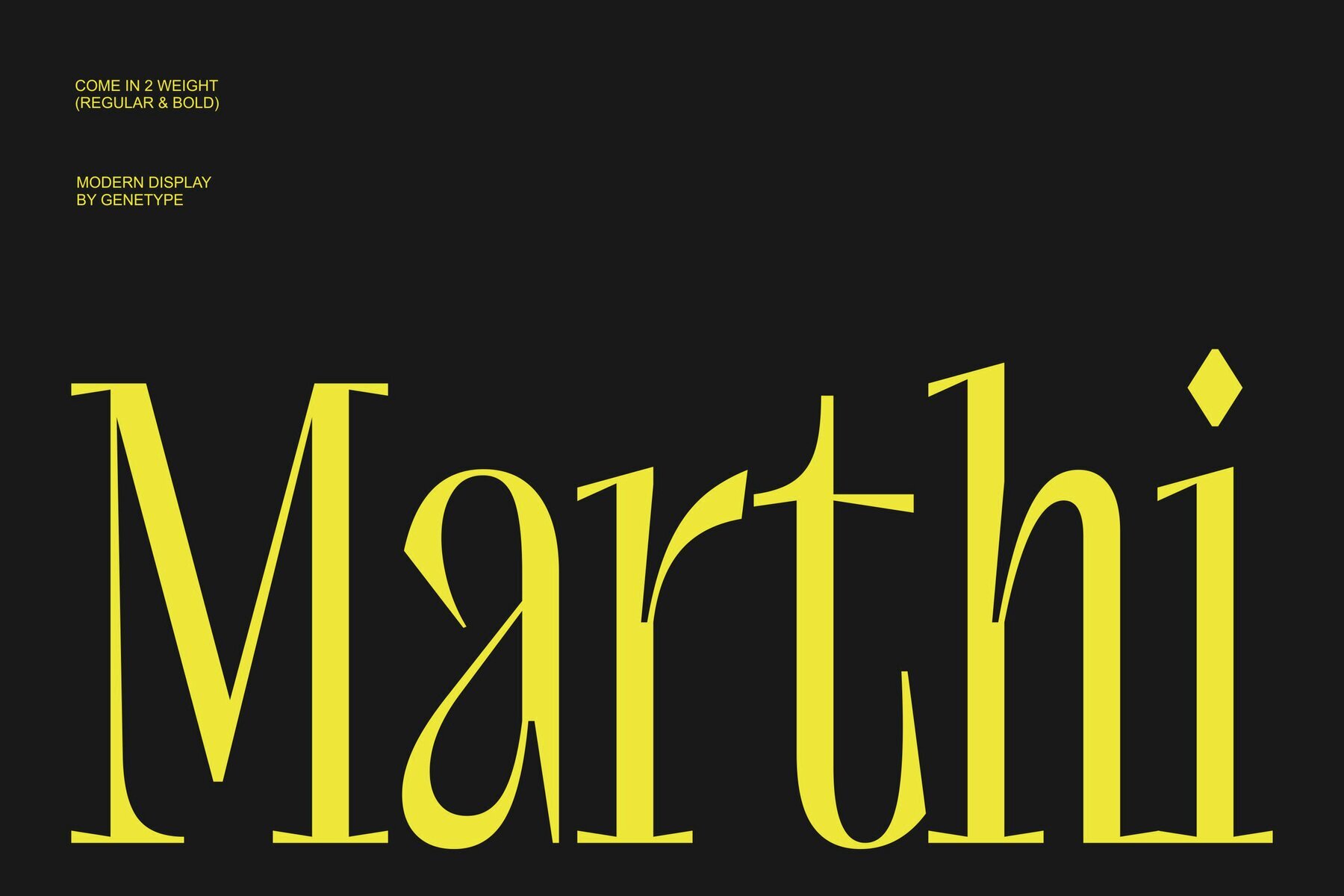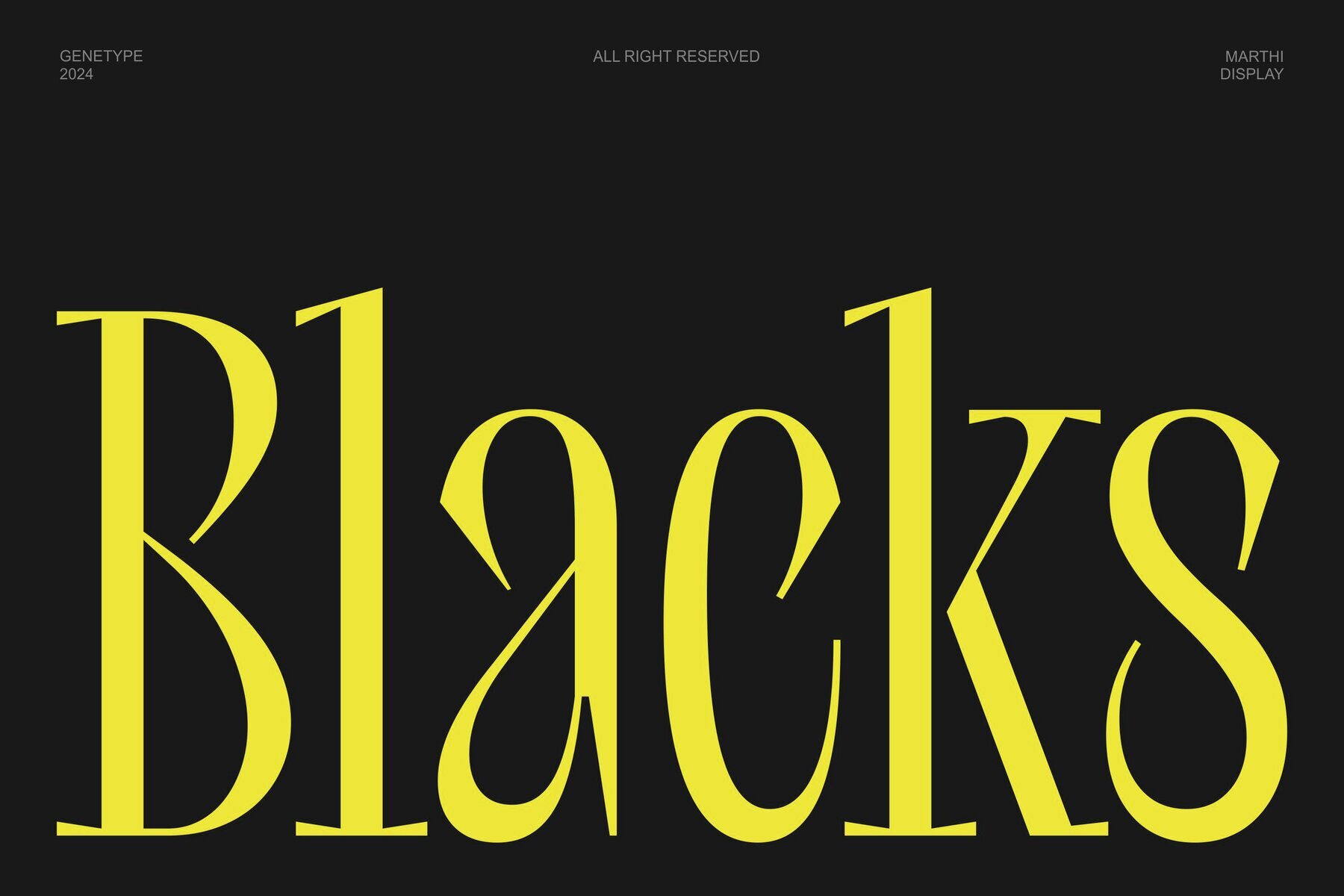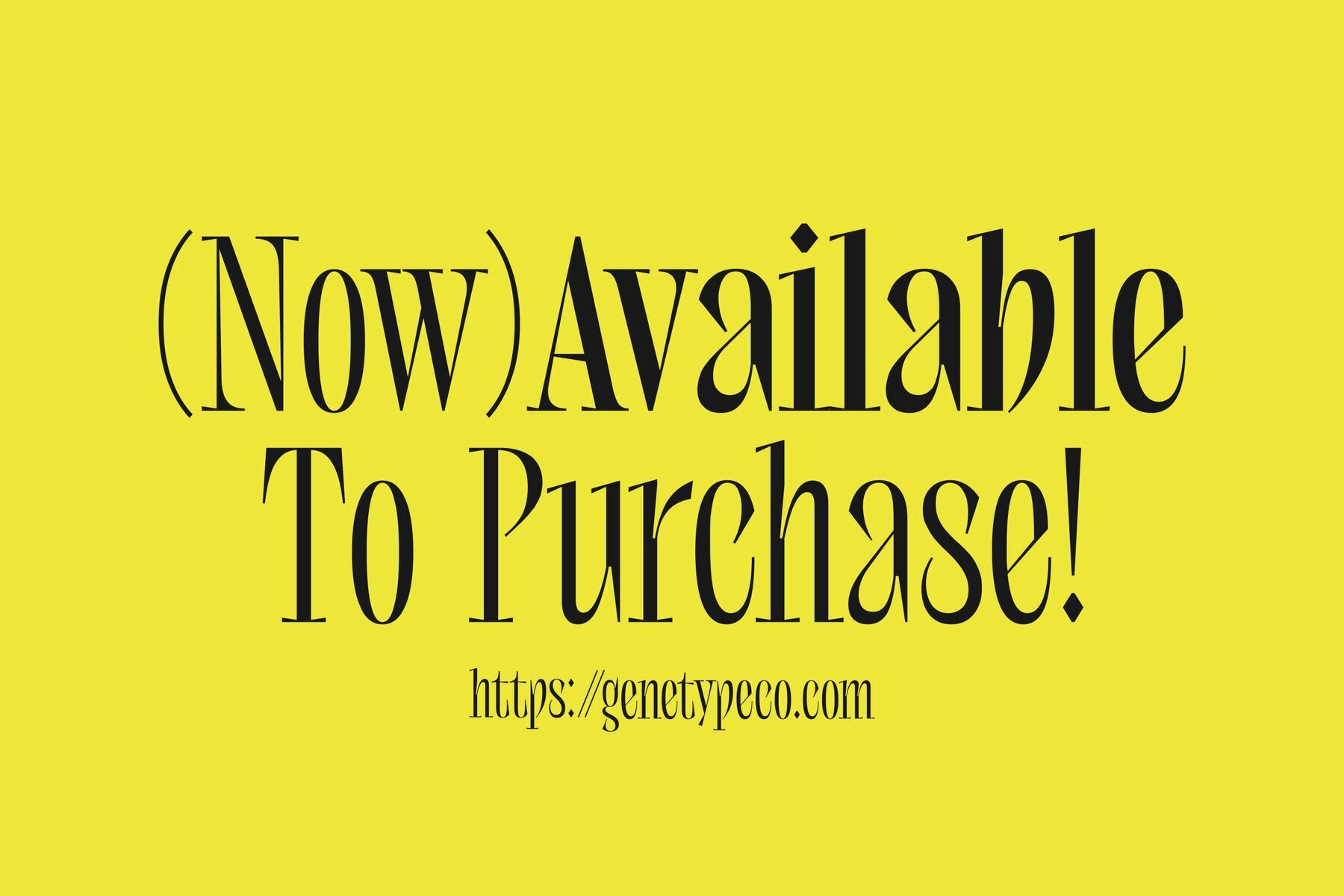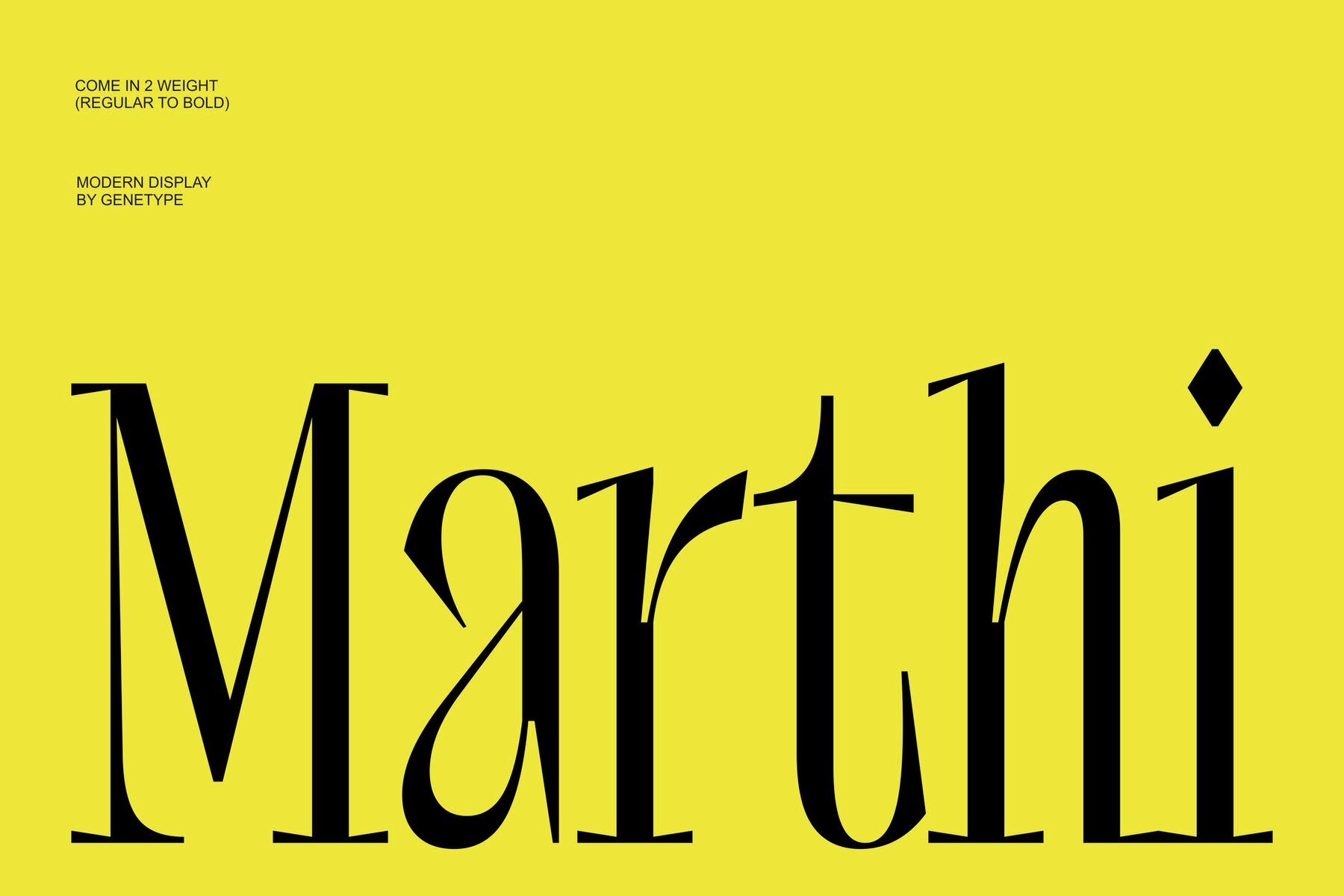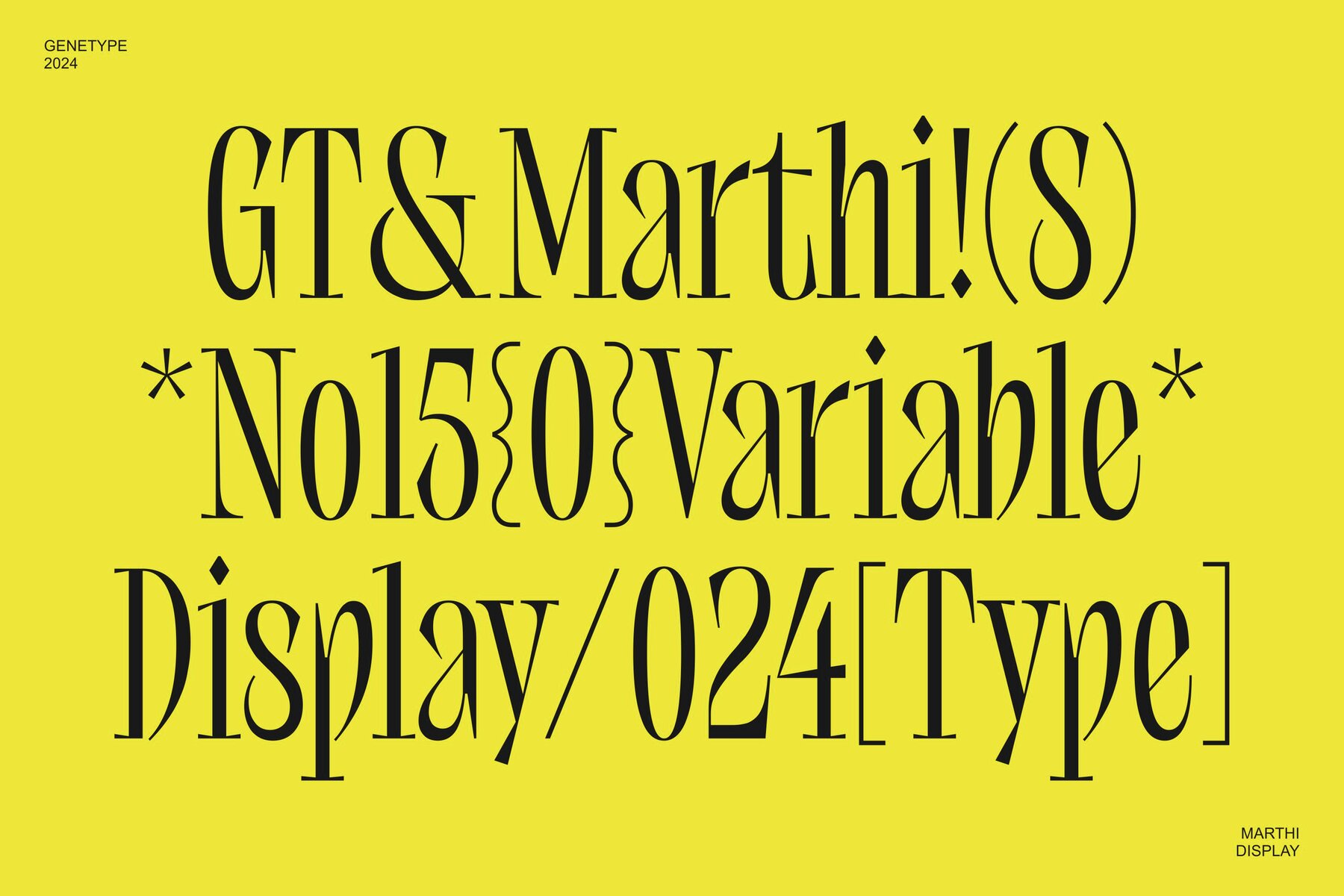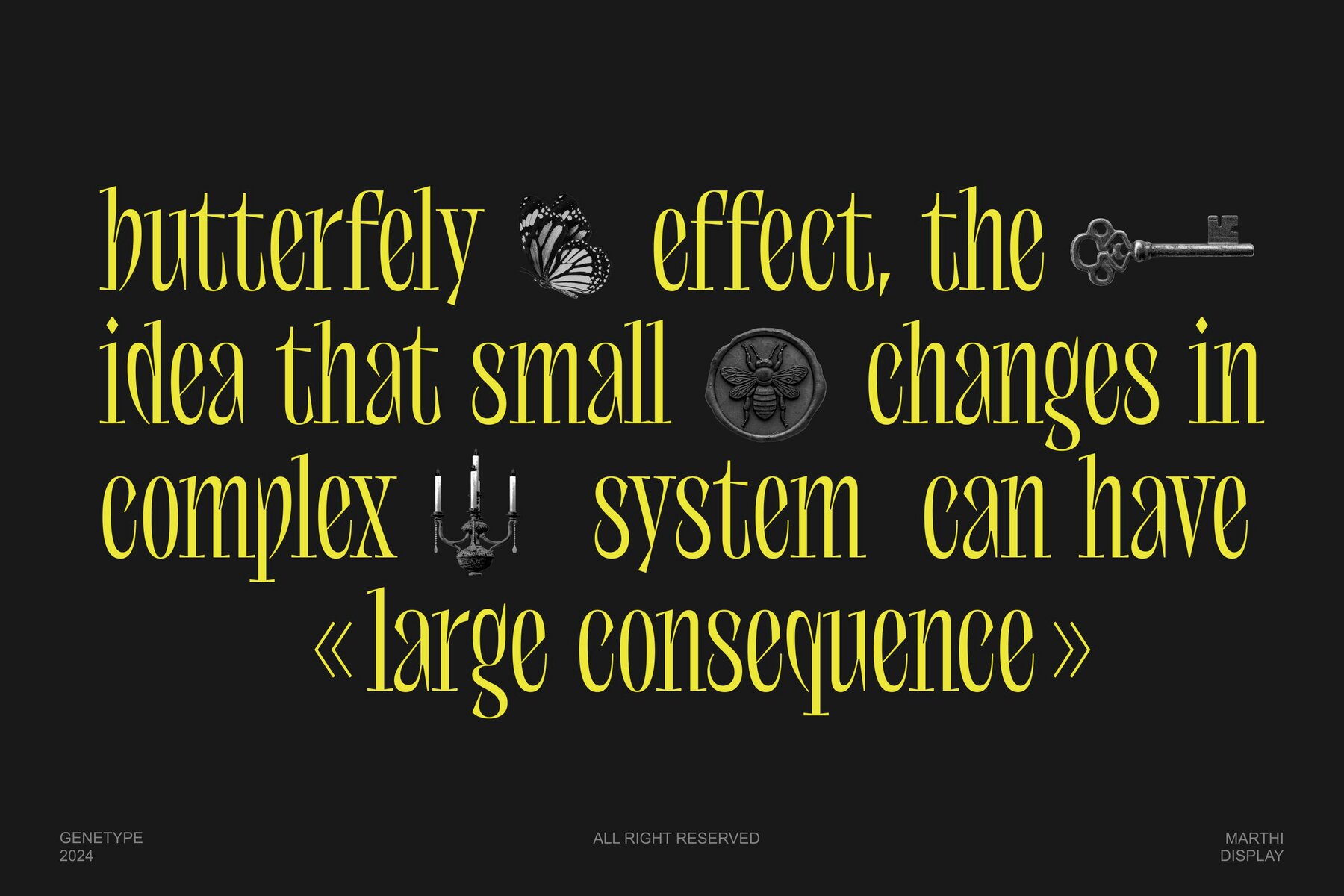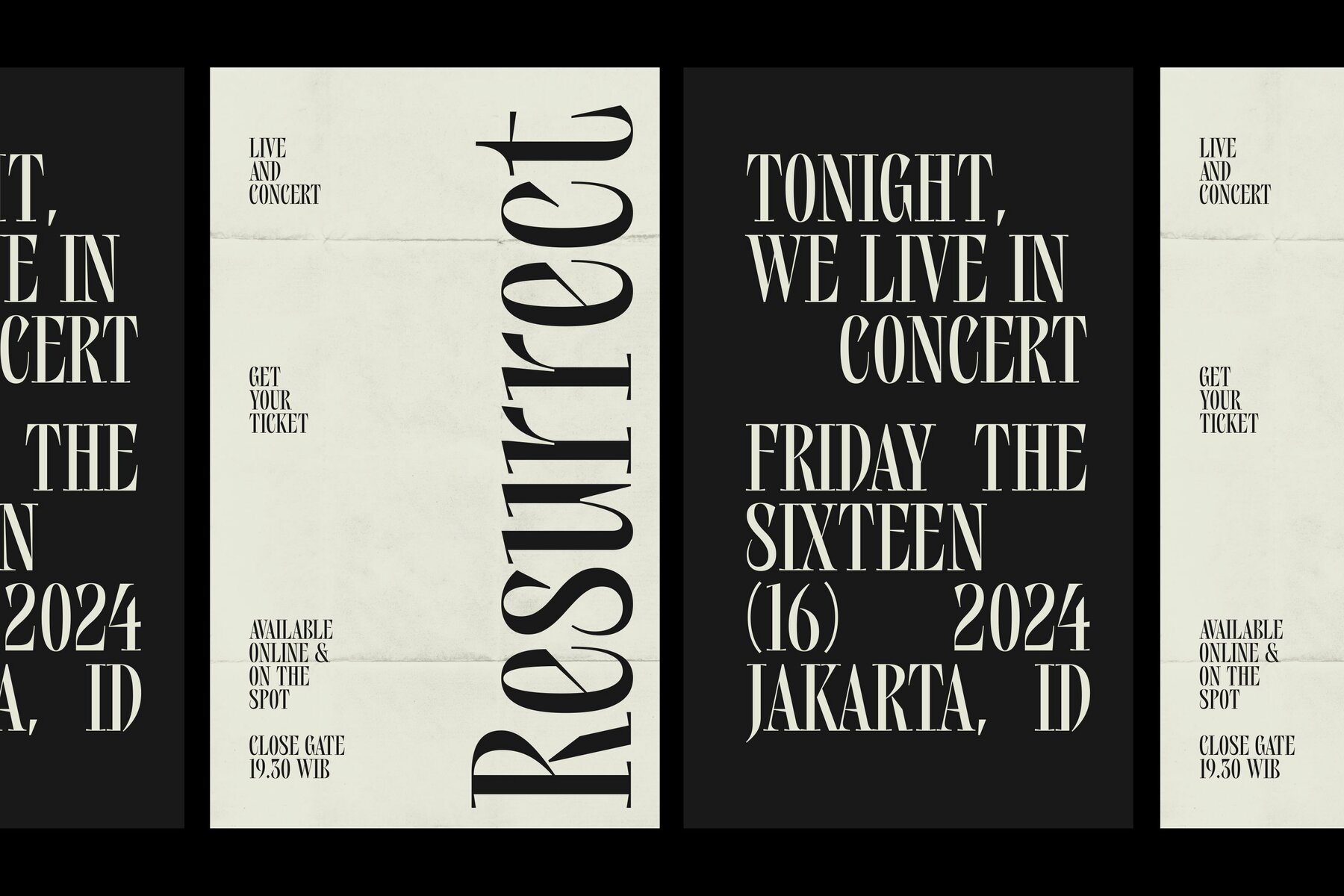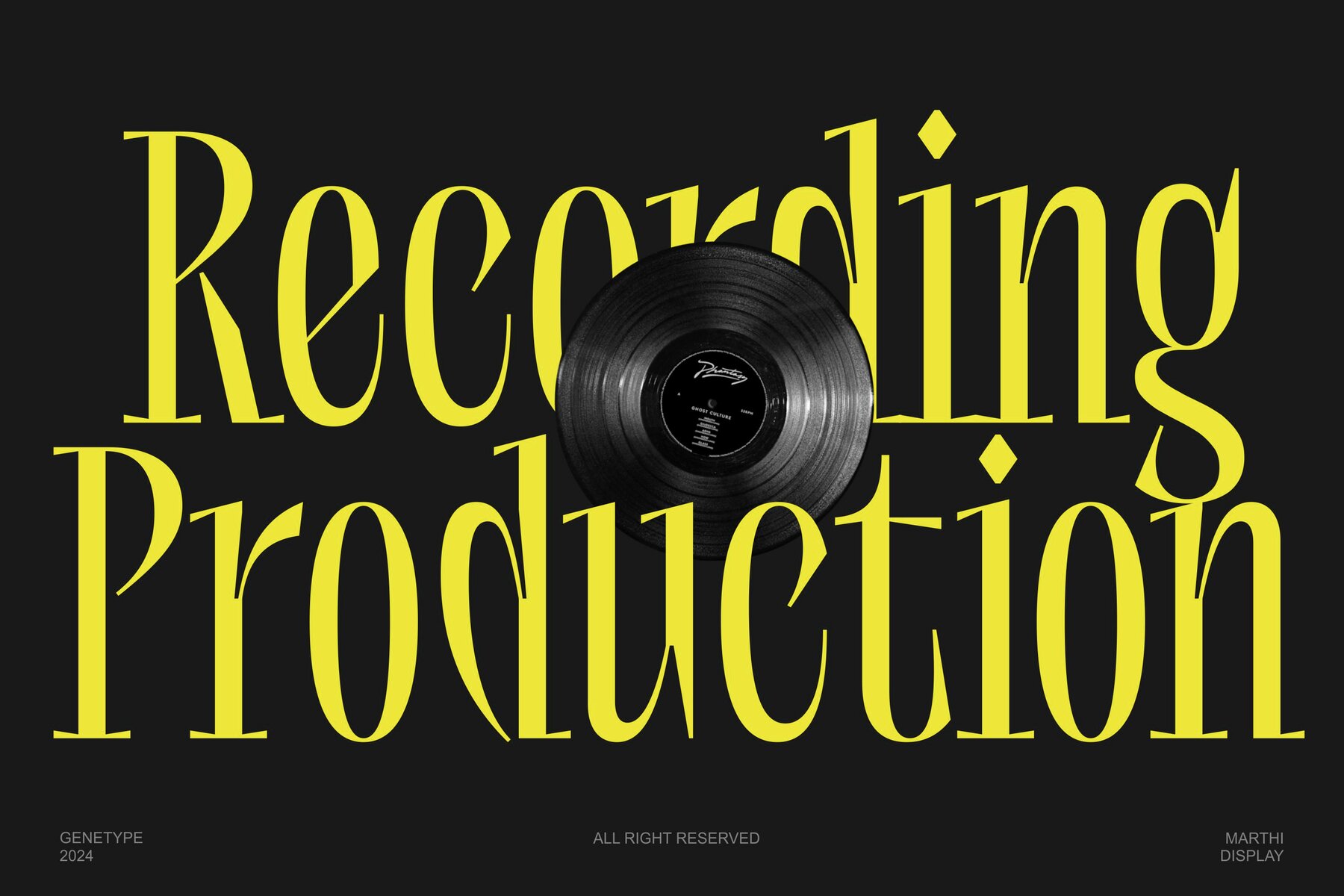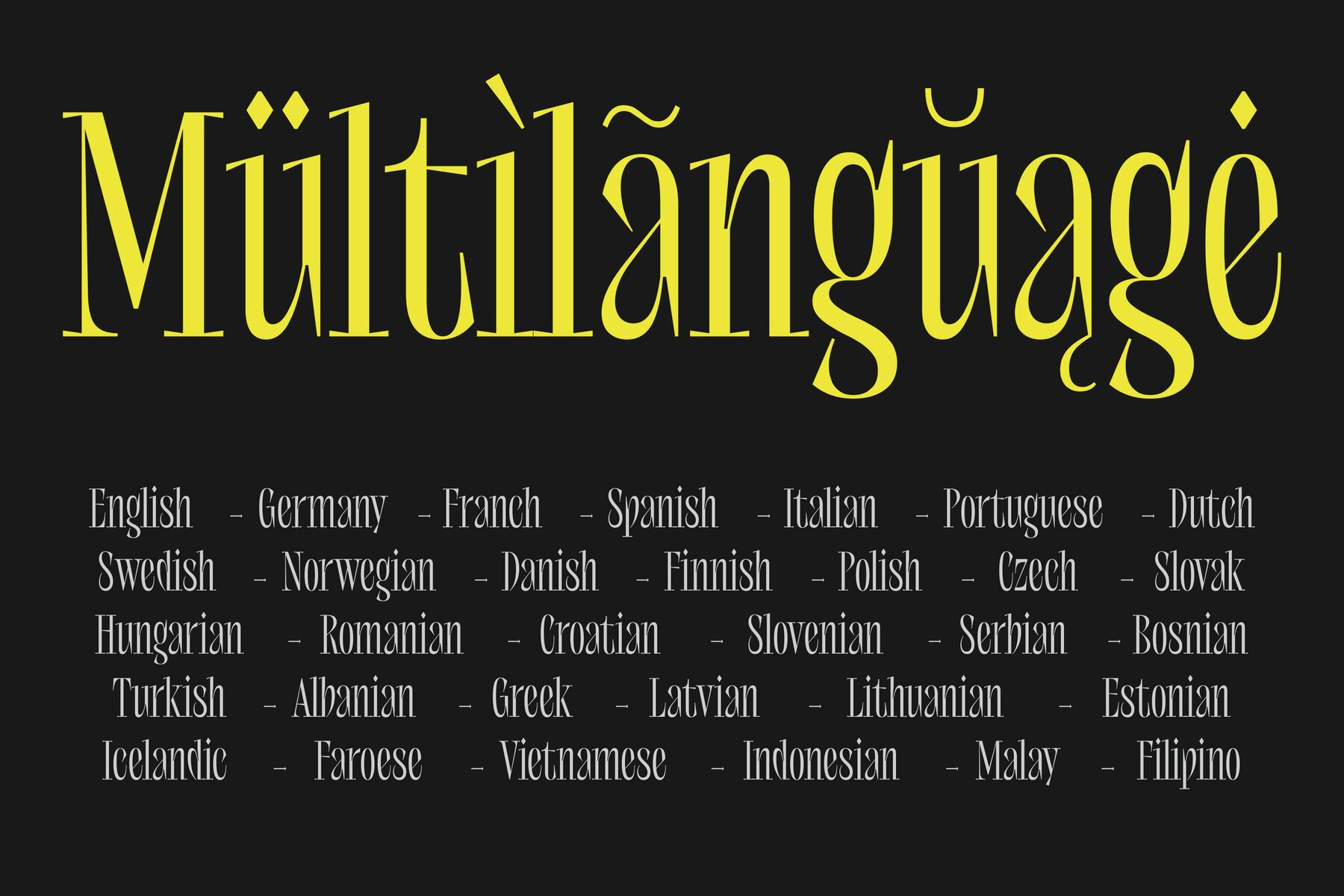
Marthi Font
Marthi is a distinctive serif font expertly merging classic elegance with modern flair. Featuring sharp, stylish serifs and smooth, clean lines, Marthi offers a timeless charm coupled with a fresh, dynamic energy. Available in Regular and Bold weights, this font is versatile and adaptable for various projects, be it crafting memorable logos, designing captivating websites, or creating engaging print materials. Simple, stylish, and a tad bold, Marthi brings a vibrant touch to your design work.